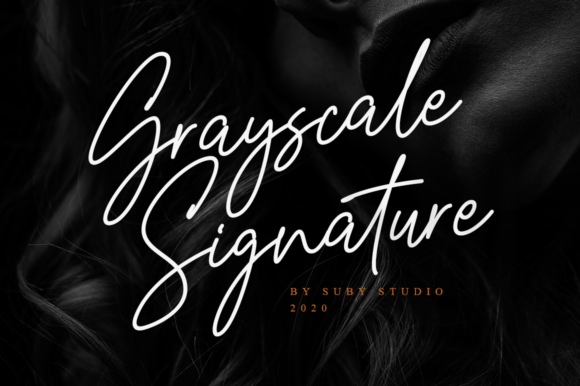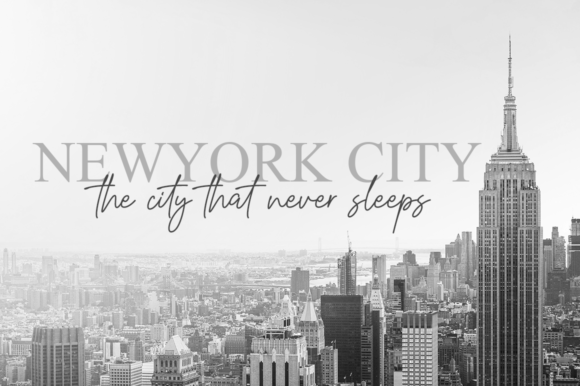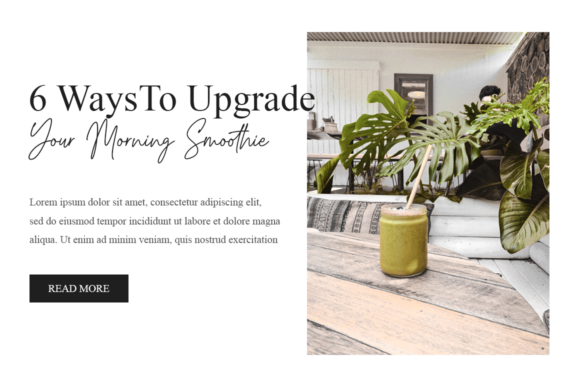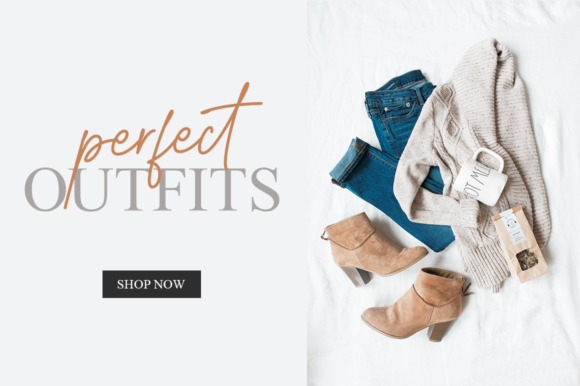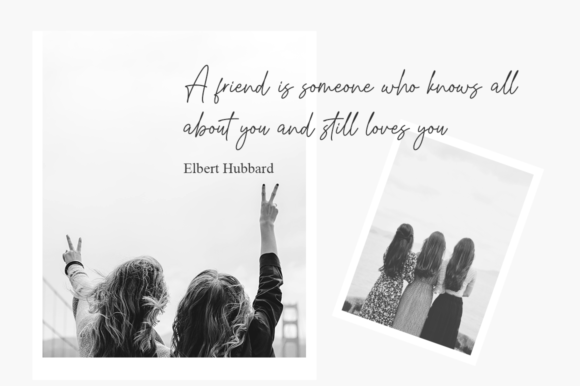
Grayscale is a unique and elegant handwritten font. Whether you’re looking for fonts for Instagram or calligraphy scripts for DIY projects, Grayscale will turn any creative idea into a true piece of art!